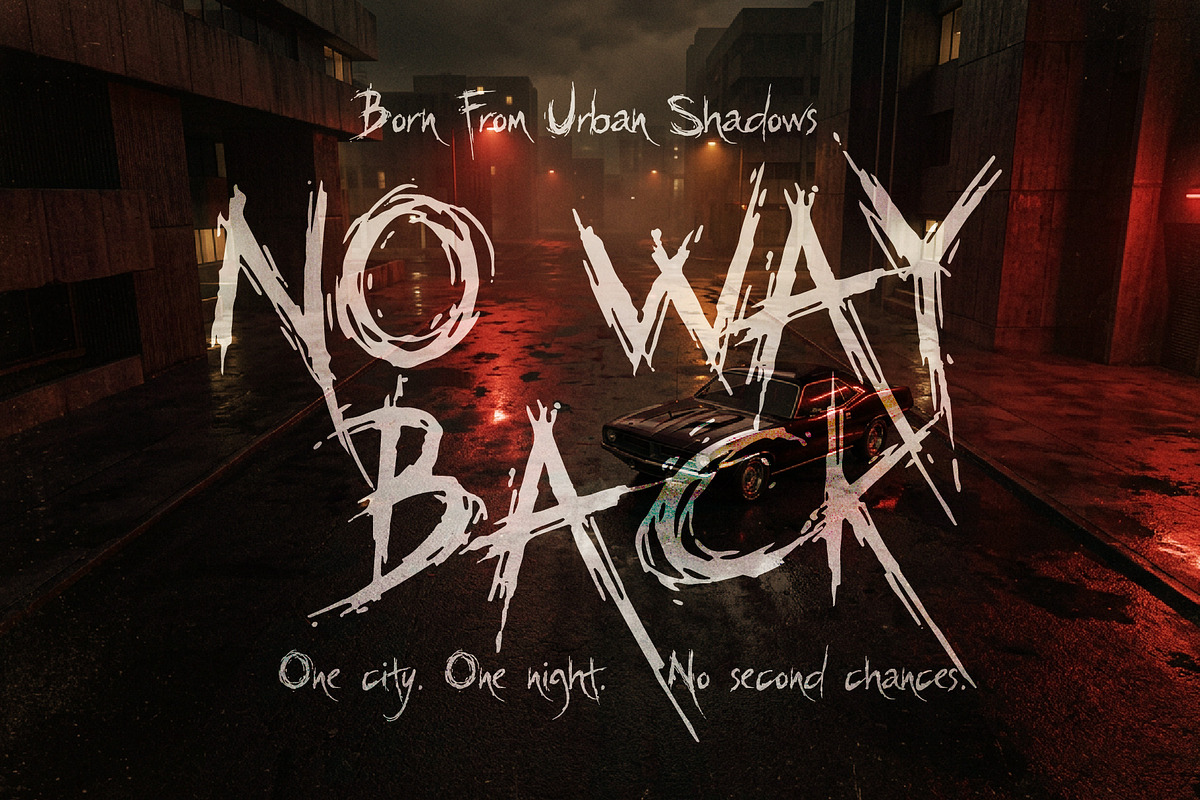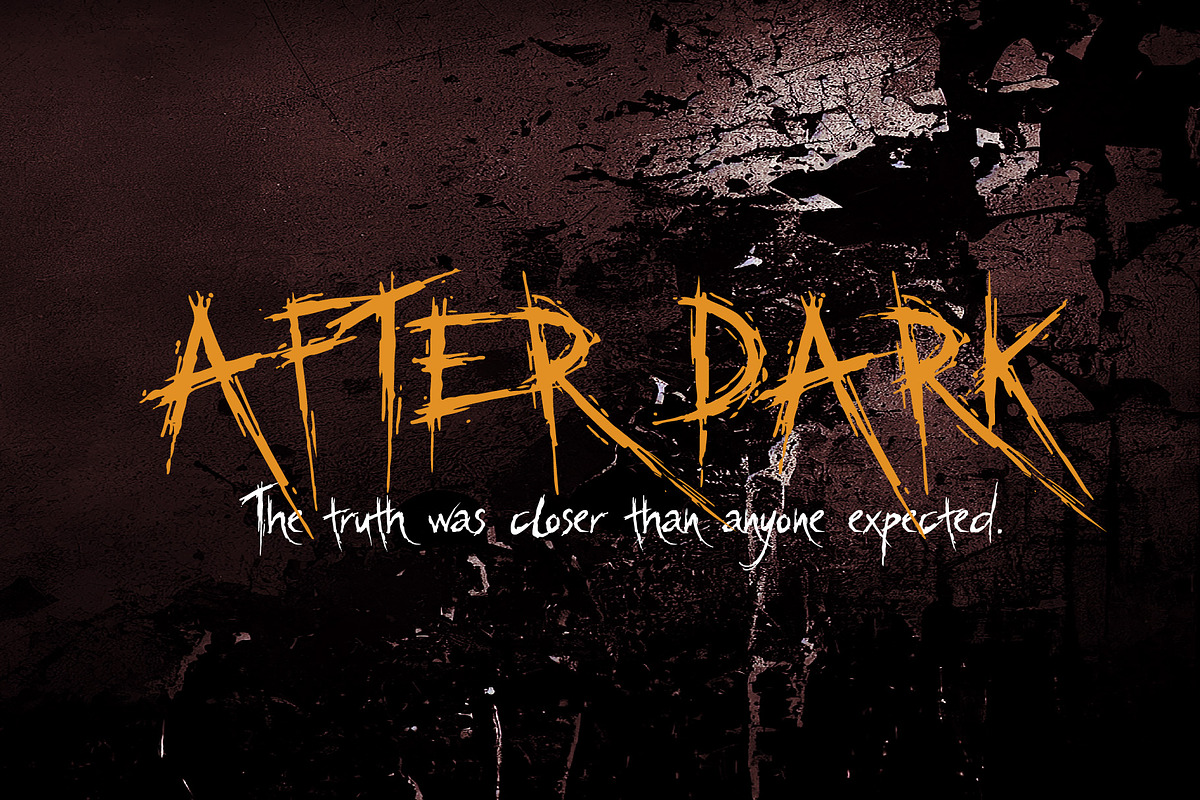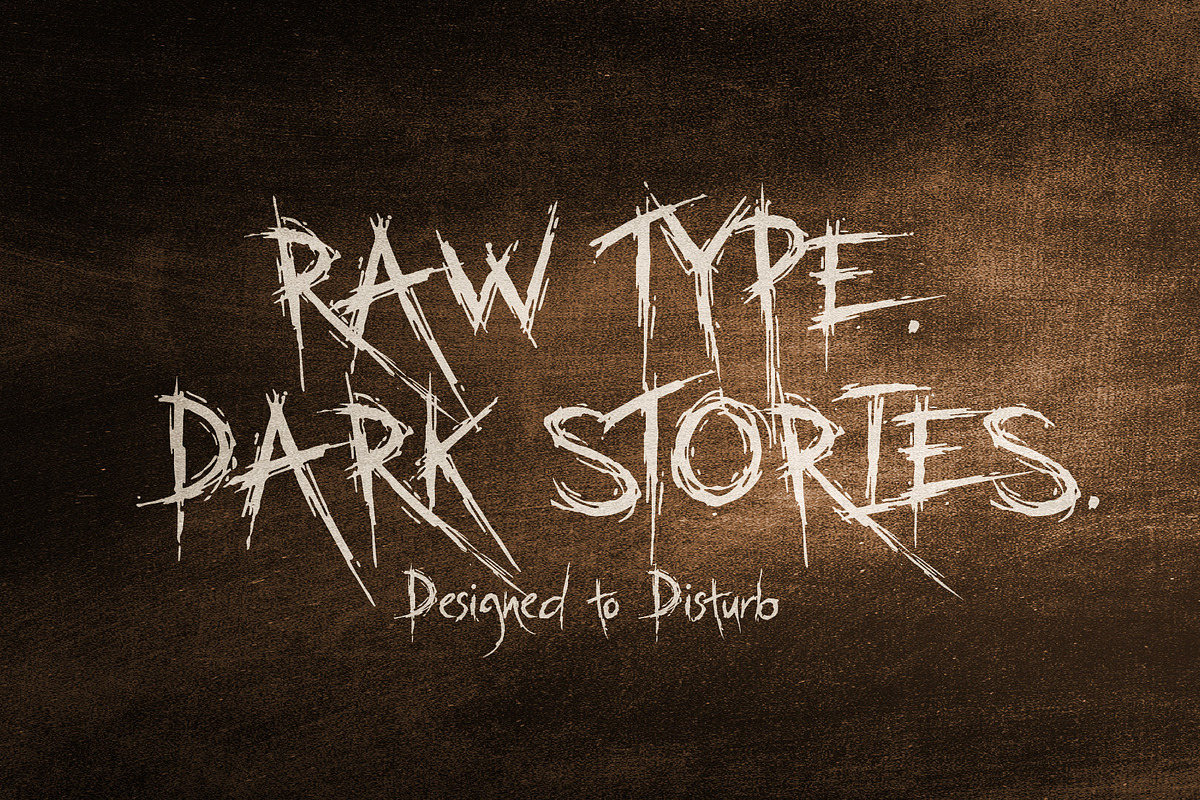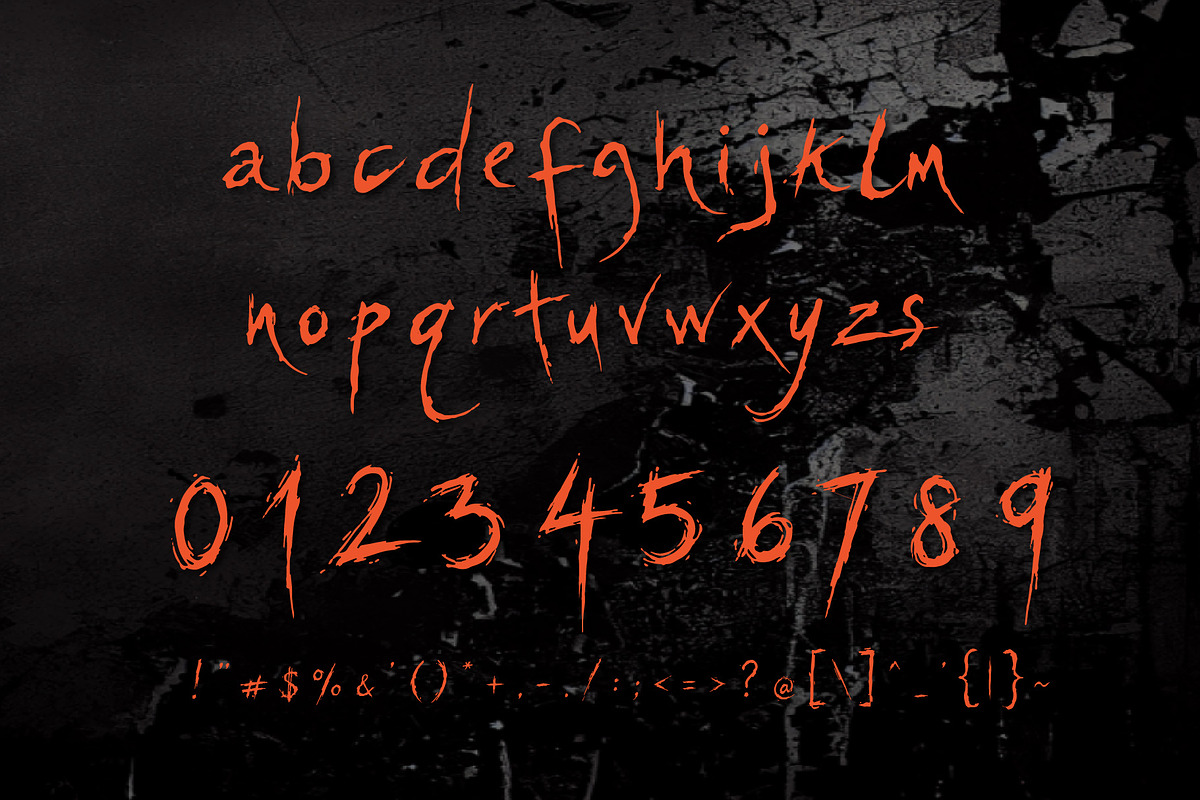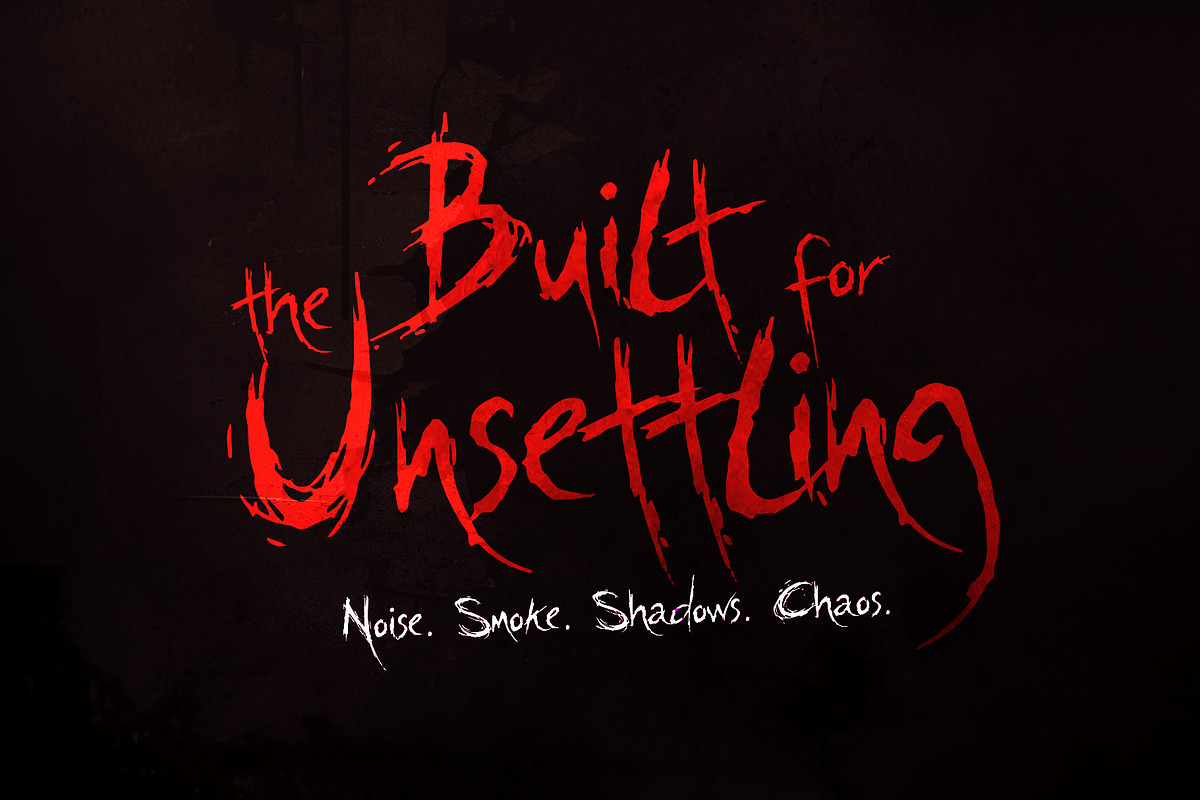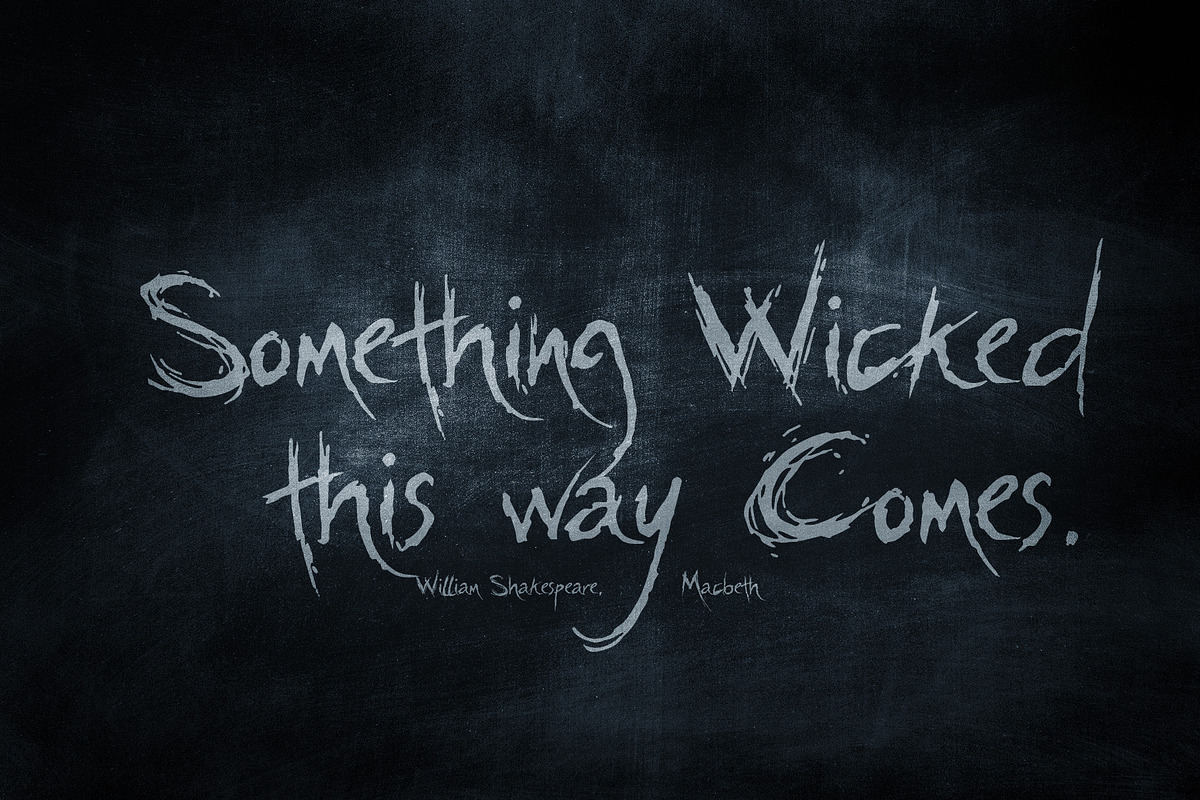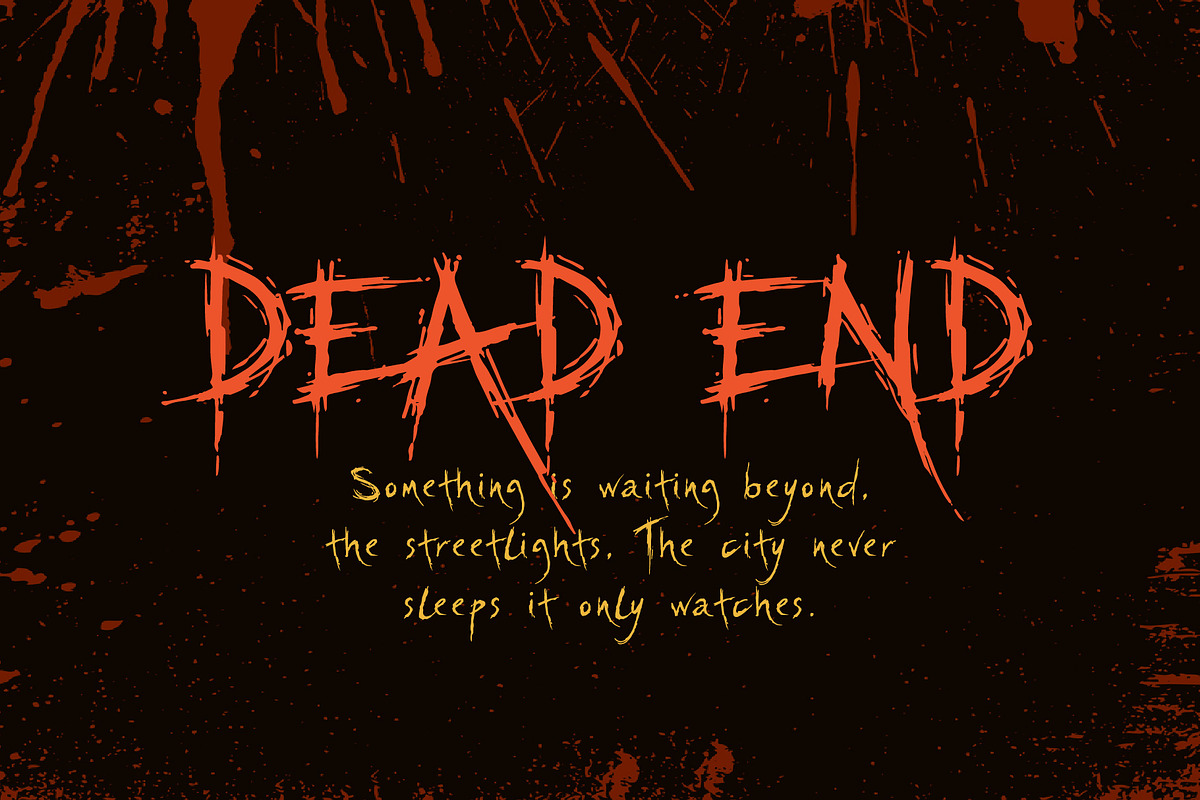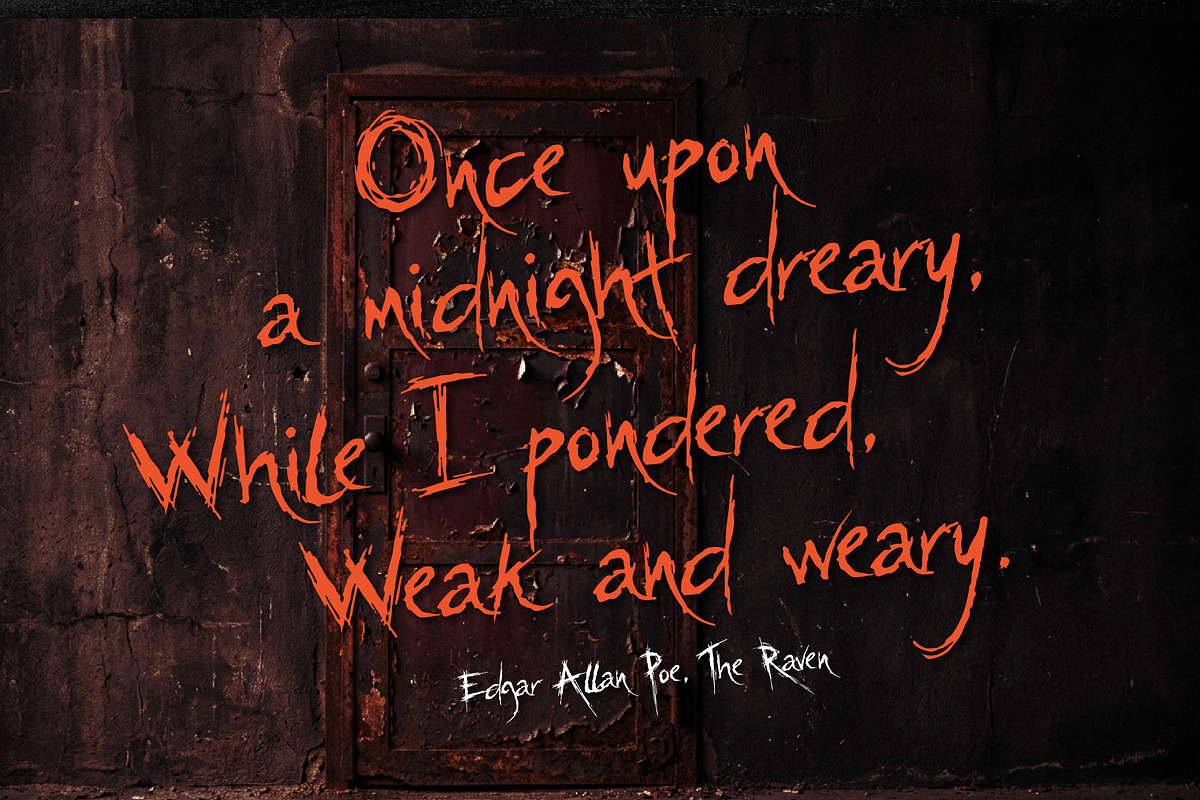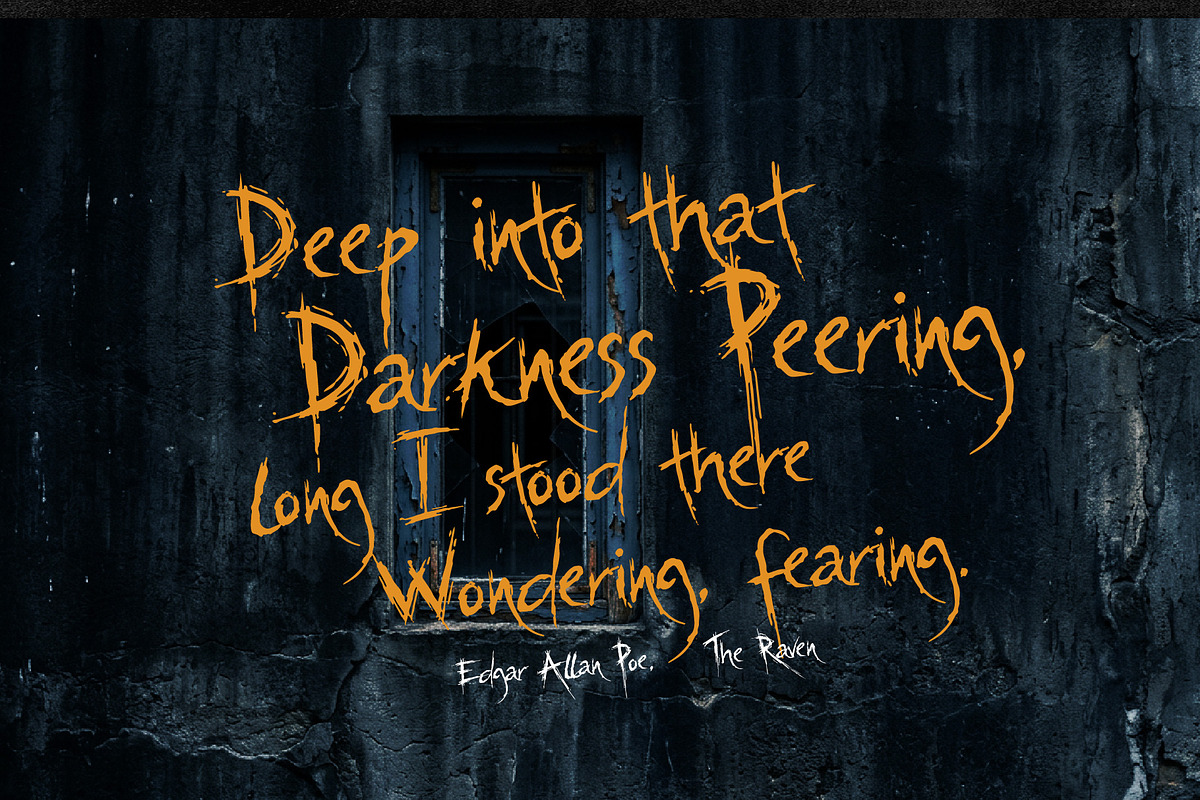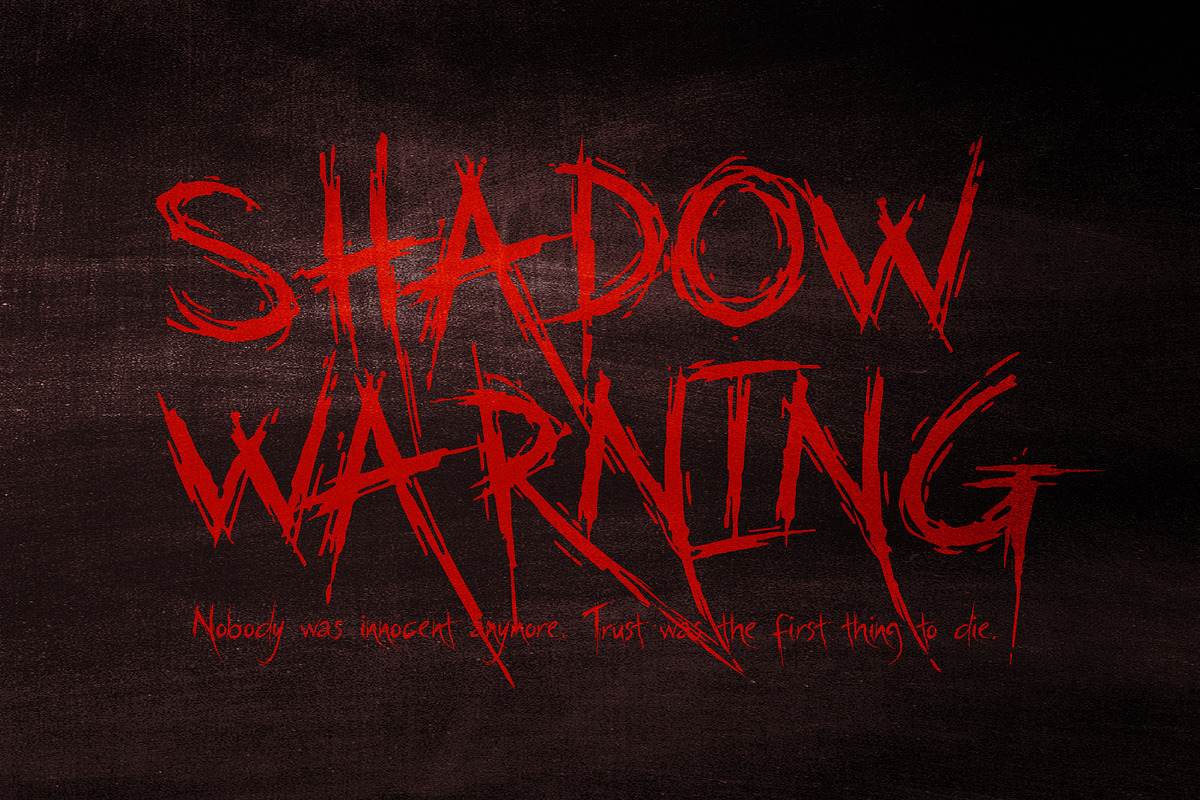
Horaz Genic - Raw Grunge Horror Font
Horaz Genic is a raw grunge display font built for dark stories, urban tension, horror scenes, and cinematic thrillers. Its distressed, rough edged character brings an intense underground atmosphere to movie posters, horror titles, album artwork, streetwear graphics, event posters, and bold branding. Perfect for designs that need a gritty, mysterious, rebellious, and slightly unsettling visual presence.